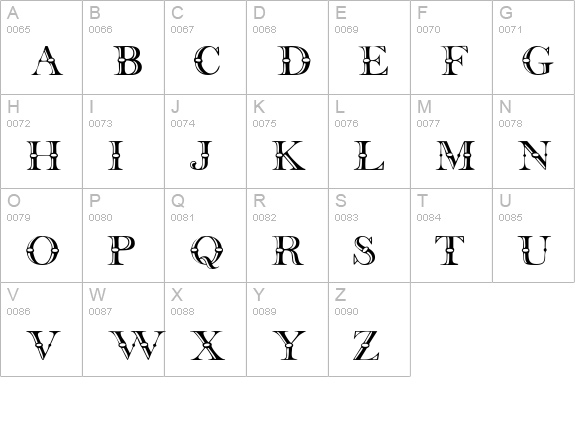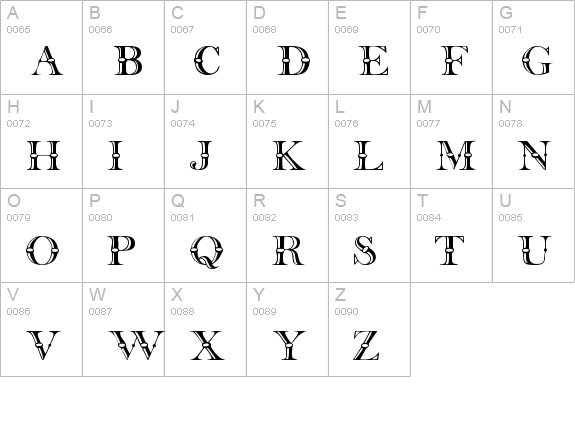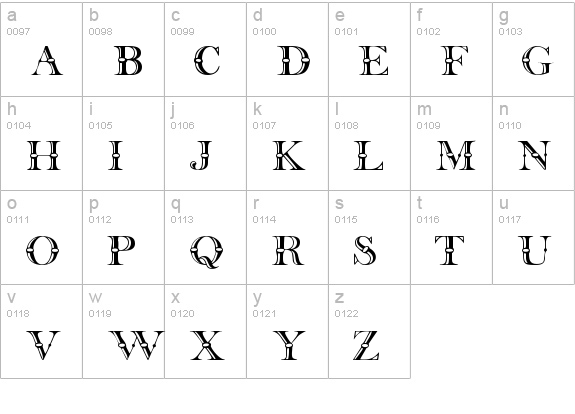
CruiselineDisplayCaps is a stunning and elegant display font that exudes sophistication and style. With its sleek lines and decorative elements, this font is perfect for creating eye-catching headlines, logos, and branding materials. The uppercase letters feature unique flourishes that add a touch of glamour to any design. Best of all, CruiselineDisplayCaps is completely free to download at FontsMarket.com. Whether you're a professional designer looking to elevate your projects or a hobbyist seeking to add a touch of luxury to your creations, this font is a must-have in your font collection. Don't miss out on the opportunity to enhance your designs with the timeless elegance of CruiselineDisplayCaps. Download it today and let your creativity soar!